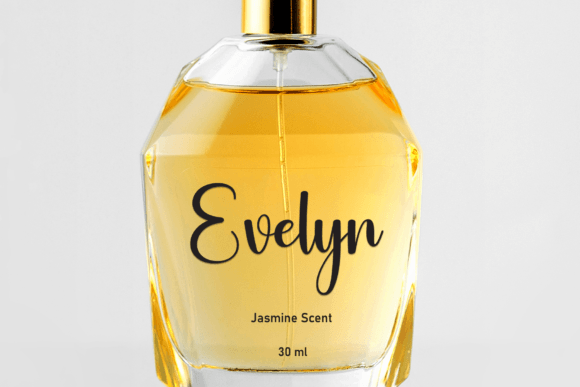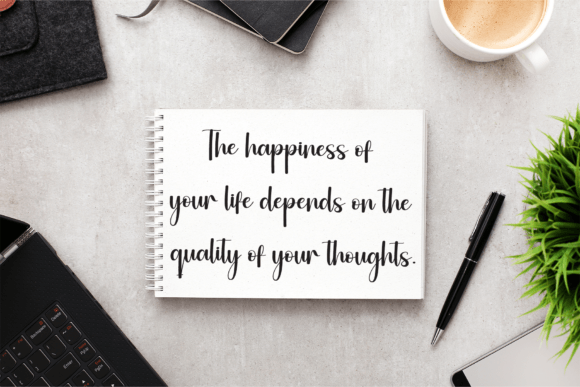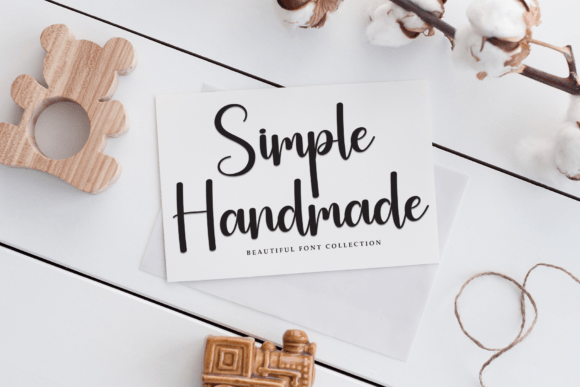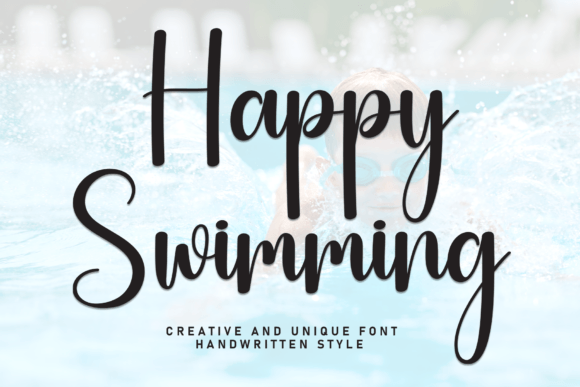
Introduction to Happy Swimming Font
this is a sweet and friendly handwritten display font.
Cute and fun, this font is ideal for writing wedding invitations, cards, or any other design that might need a fun touch .